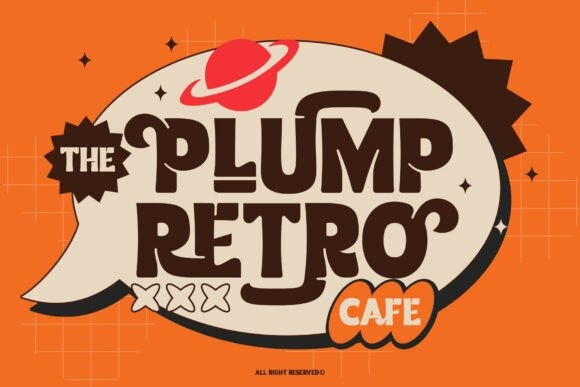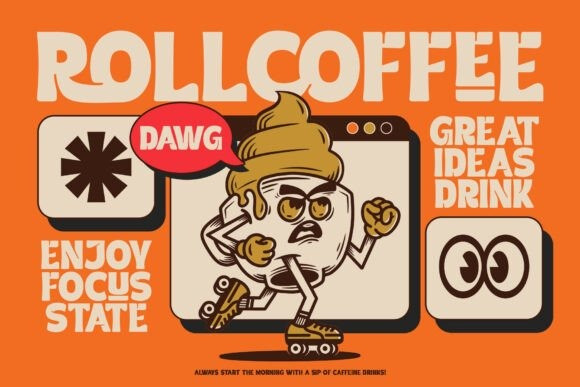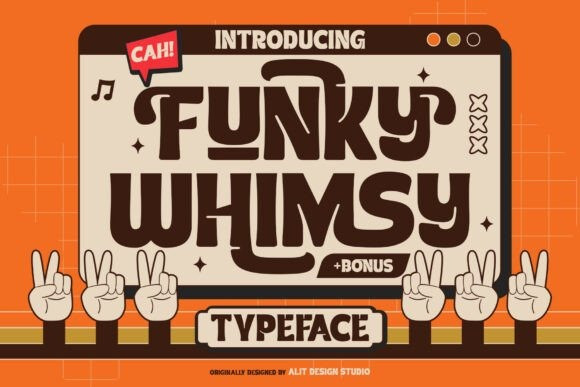
Funky Whimsy Font
Funky Whimsy Font Originally designed by Alit Design Studio, Funky Whimsy is a quirky, bold, and incredibly unique display font inspired by the golden era of groovy 70s style. With its thick, bubbly curves, playful letterforms, and unapologetically retro vibe, this typeface is built to make your designs pop, dance, and stand out from the crowd.
Whether you are designing a standout logo, eye-catching packaging, or vibrant merchandise, Funky Whimsy brings an instant wave of nostalgia and cheerful energy to any project.
This isn’t just a standard alphabet—it’s a massive typographic playground. Funky Whimsy is absolutely packed with OpenType features, giving you ultimate creative control. With a huge variety of stylistic alternates spanning from Stylistic Set 01 to Set 10, you can mix and match character shapes to create custom, hand-lettered looks in seconds.
Want to add even more character? Dive into the extensive collection of custom ligatures and playful Dingbat Ligatures (featuring retro icons, peace signs, sparkles, and more) to give your artwork that perfect, finished touch.